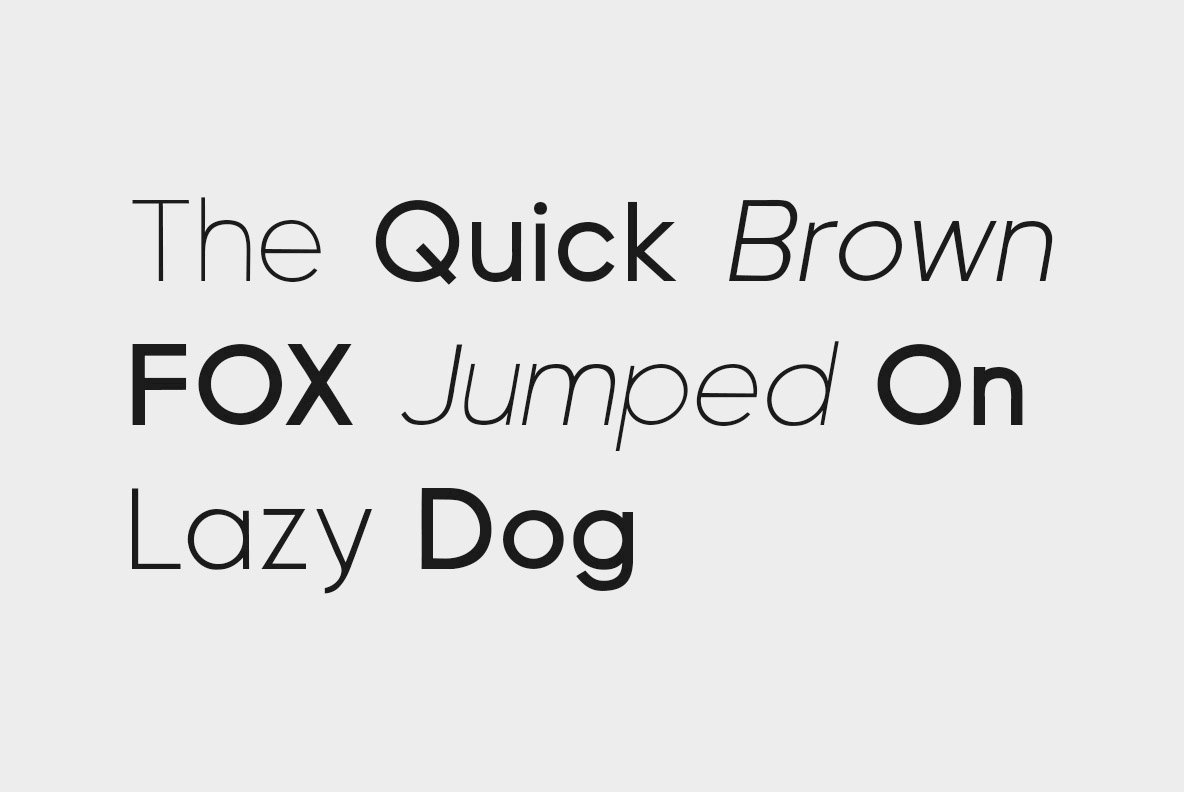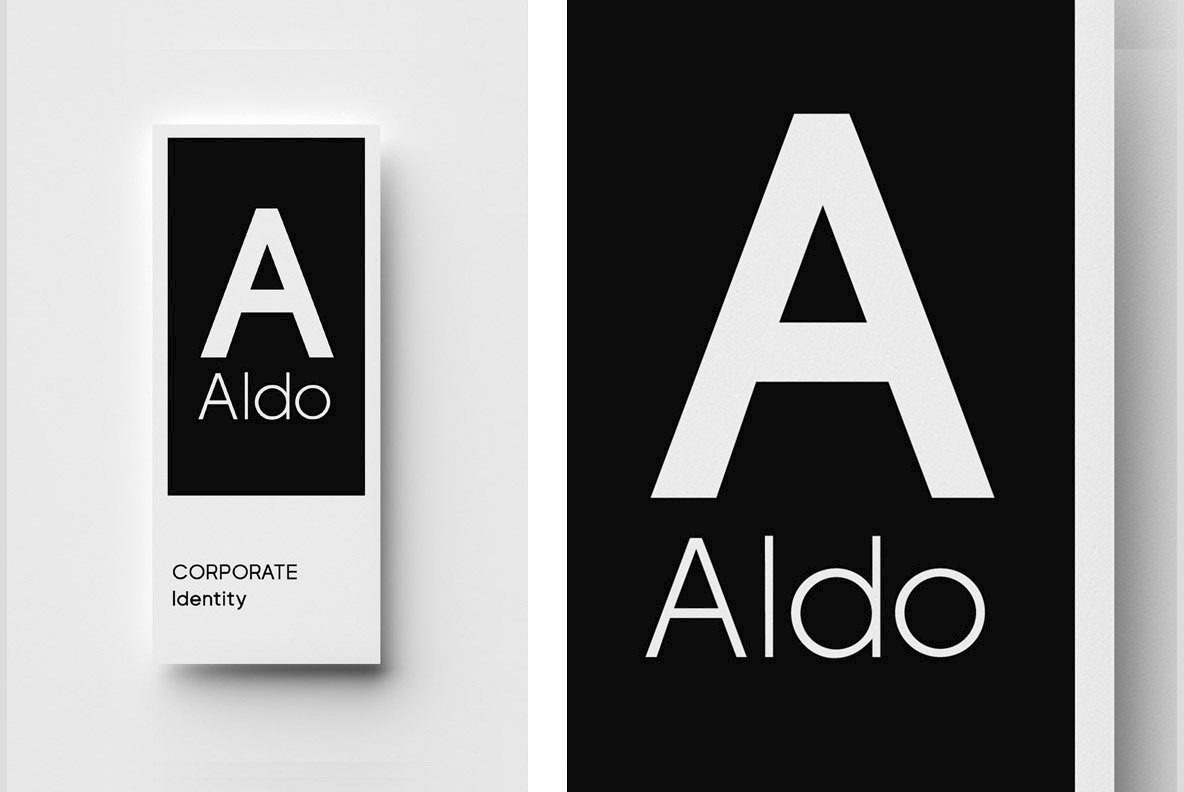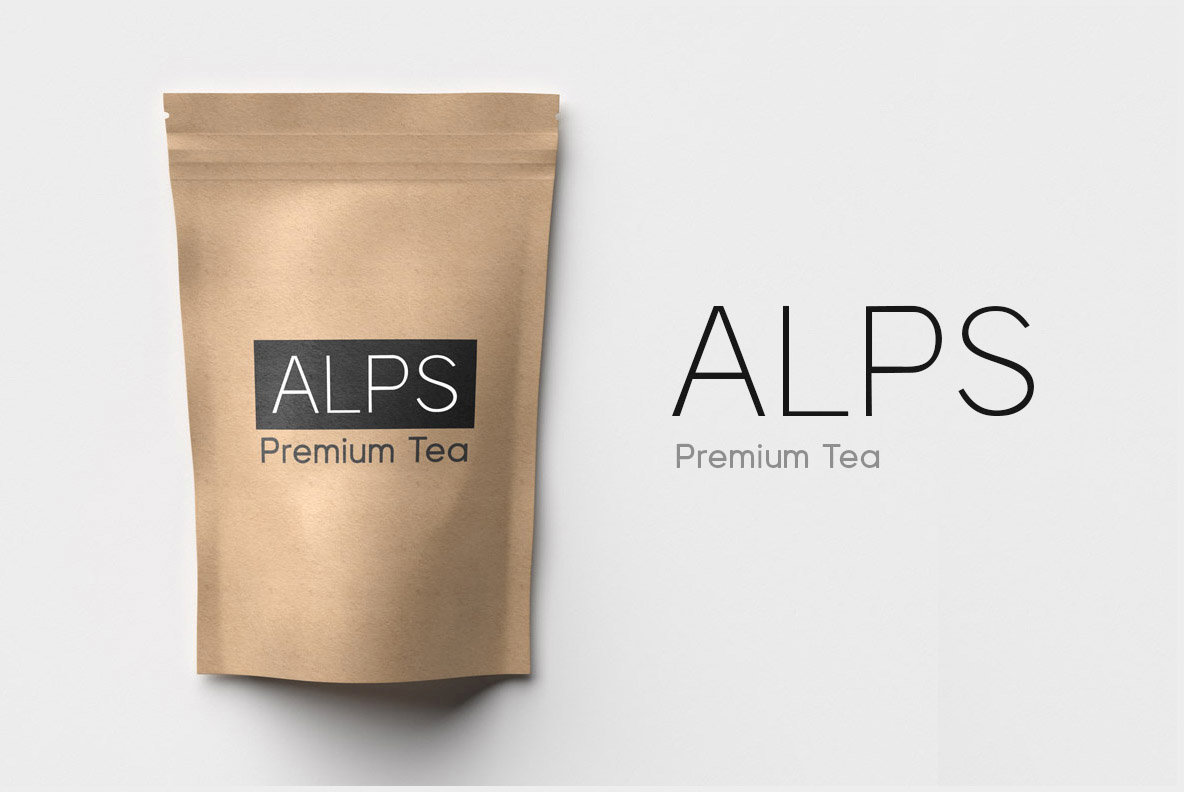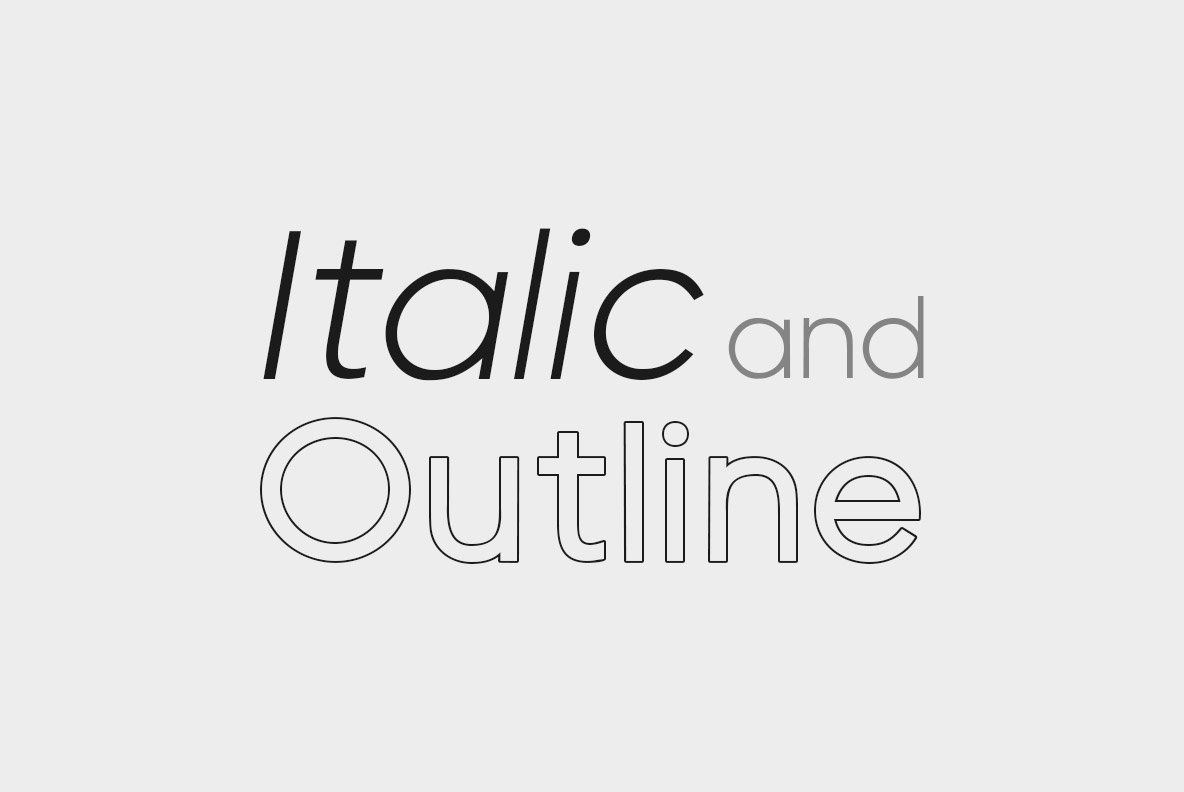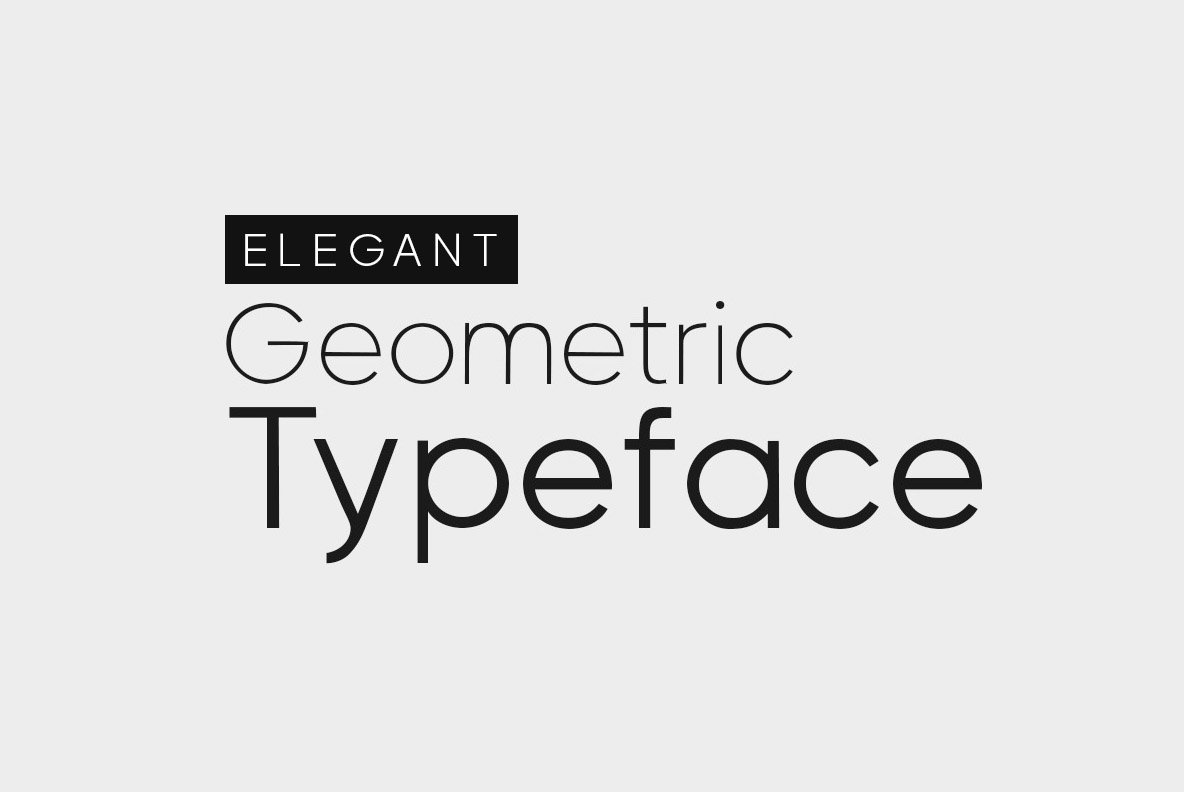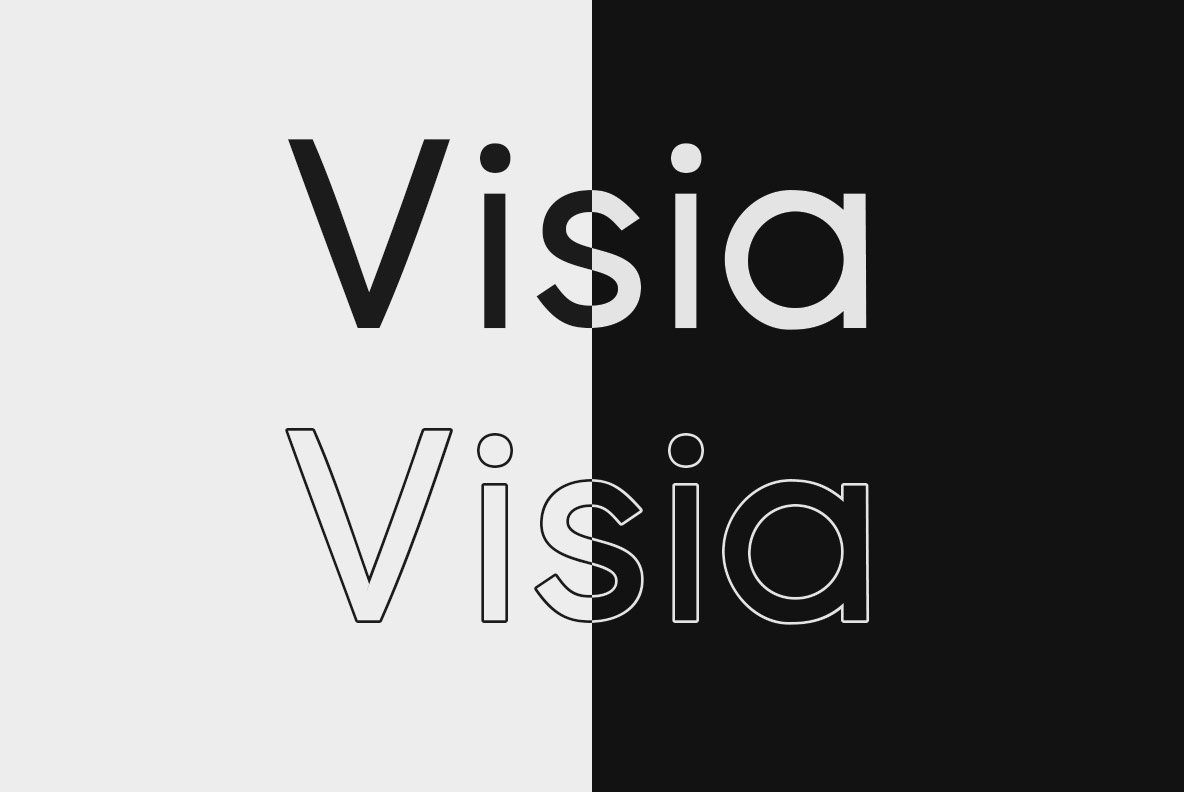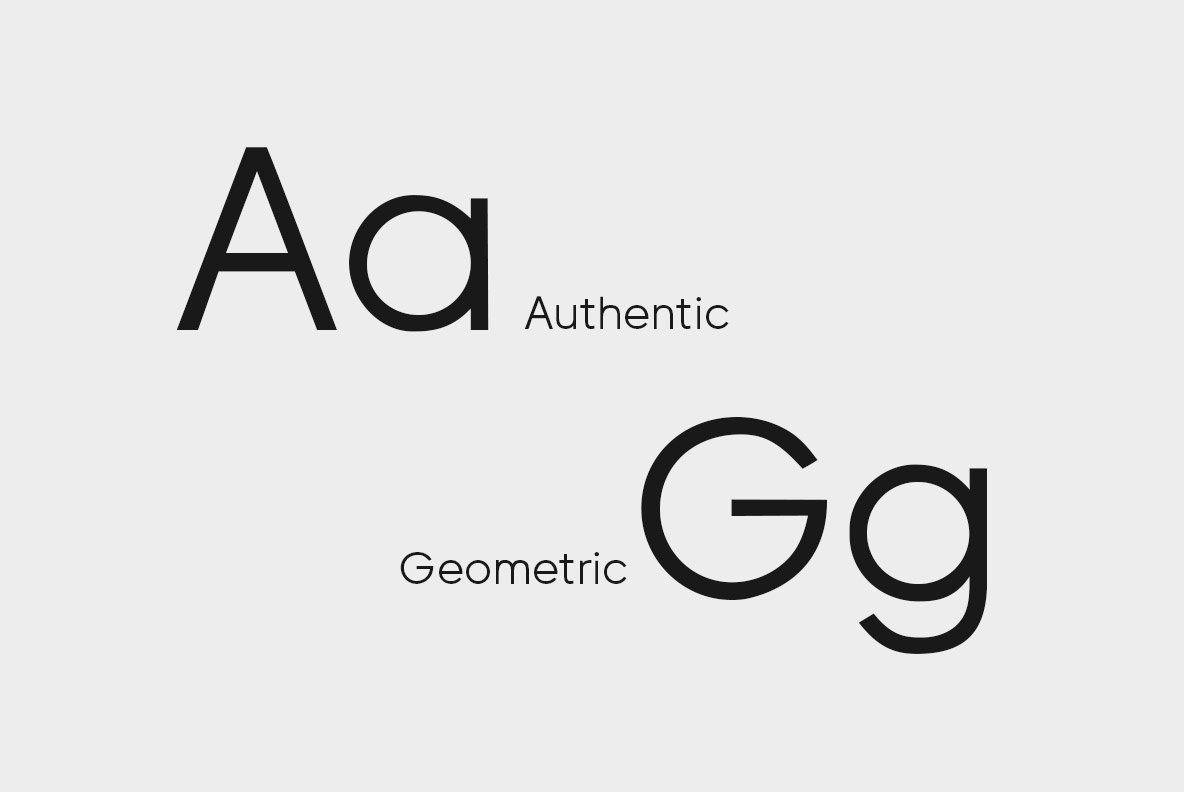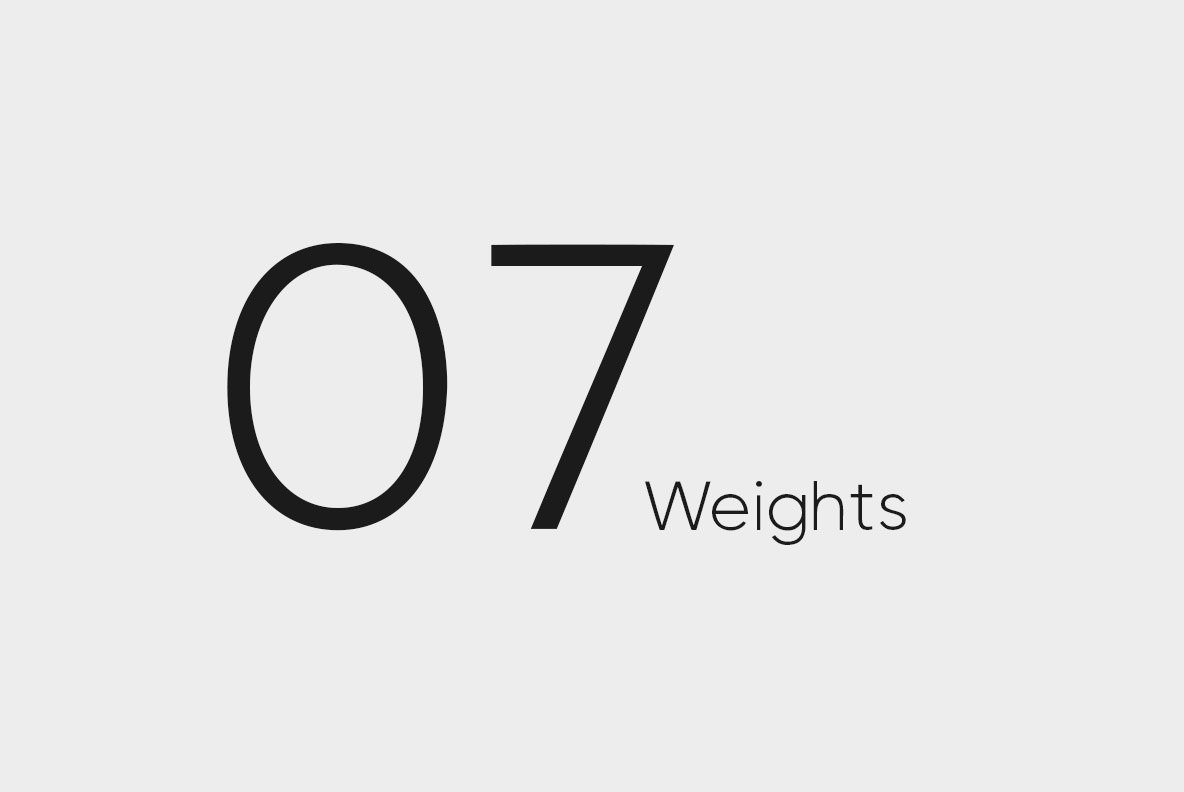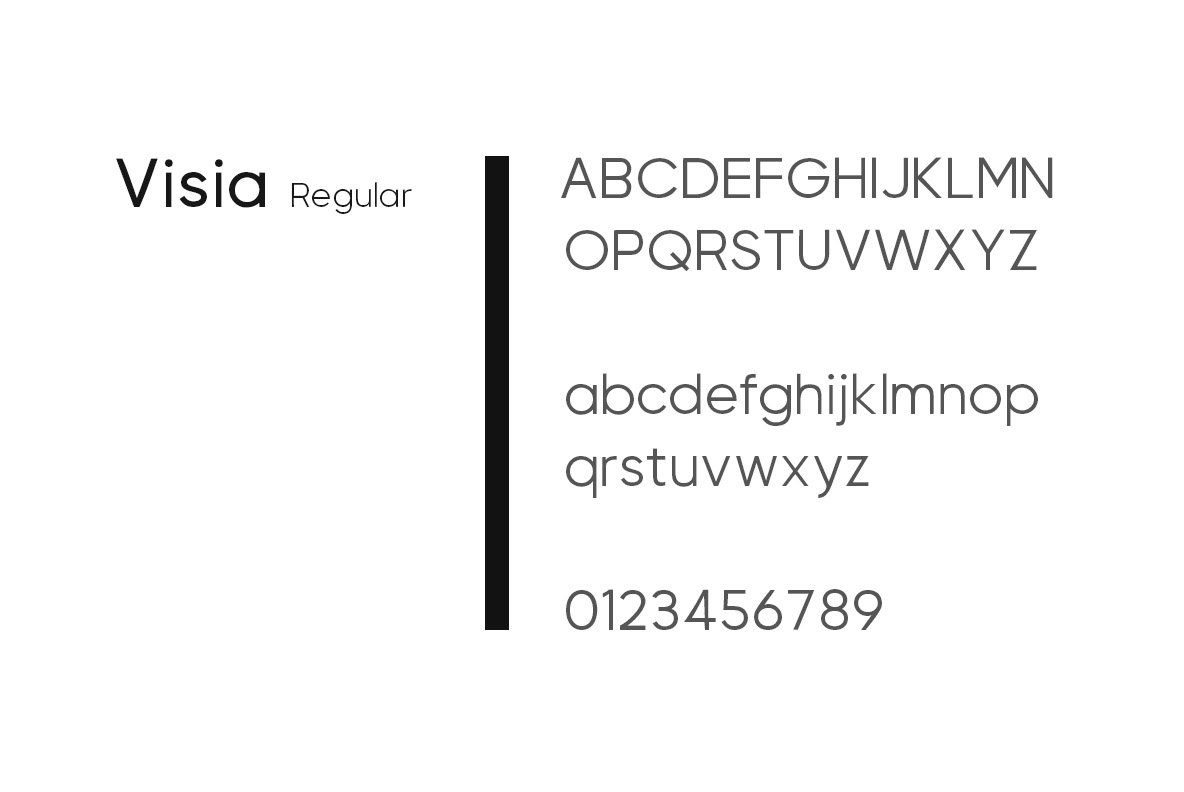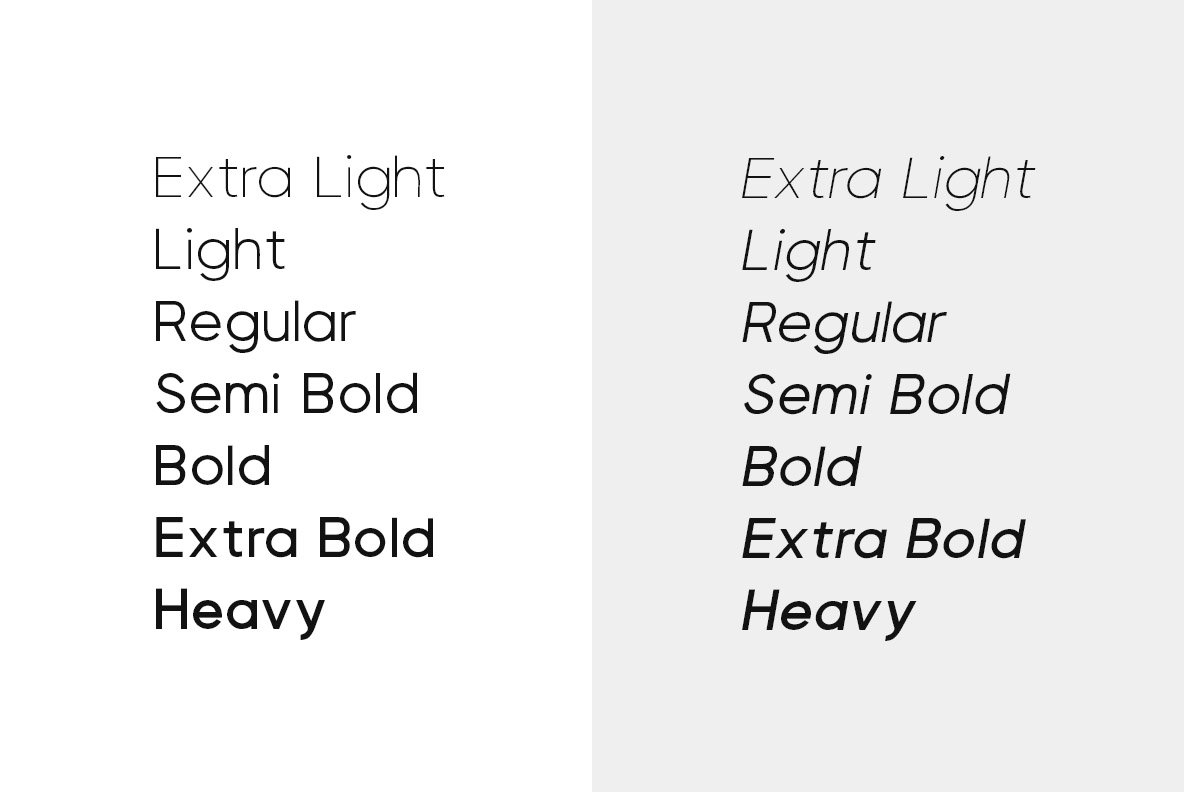
A Geometric Sans-Serif typeface, a perfect blend of elegant, minimal and premium design aesthetics at it's level best. A perfect typeface for logotypes, headlines, branding, marketing graphics, corporate identities, and all web & print purposes.
Visia comes with 18 fonts in total, spanning across 7 weights and italic versions of each weight including: Extra Light / Regular / Semi Bold / Bold / Extra Bold / Heavy.
The family also contains Outline versions of Regular and Bold along with their italic versions